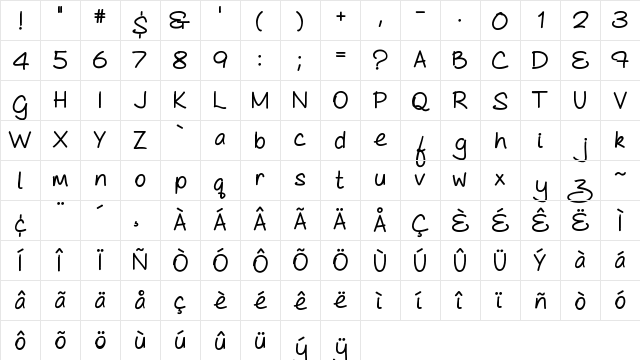
As Cute As... Heavy Heavy Free Font
As Cute As... Heavy Heavy
Design Context for As Cute As... Heavy
As Cute As... Heavy is a composed and adaptable typeface that performs quietly and consistently across a wide range of design contexts.